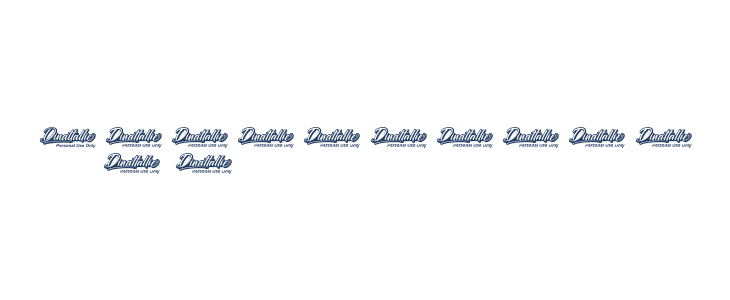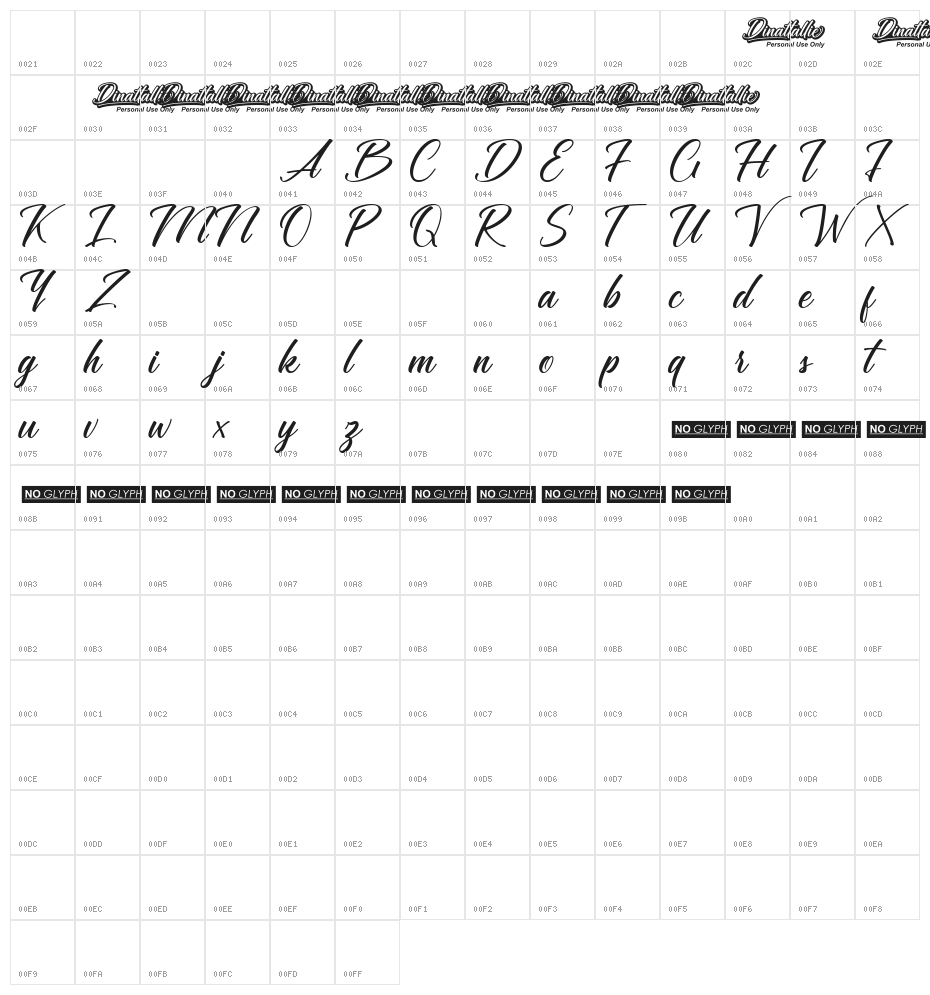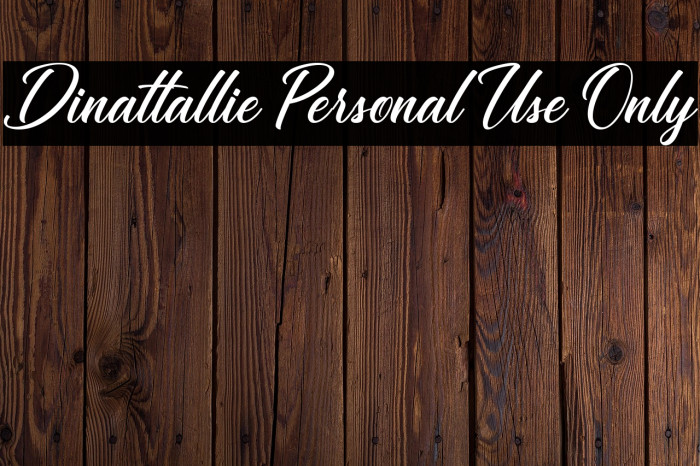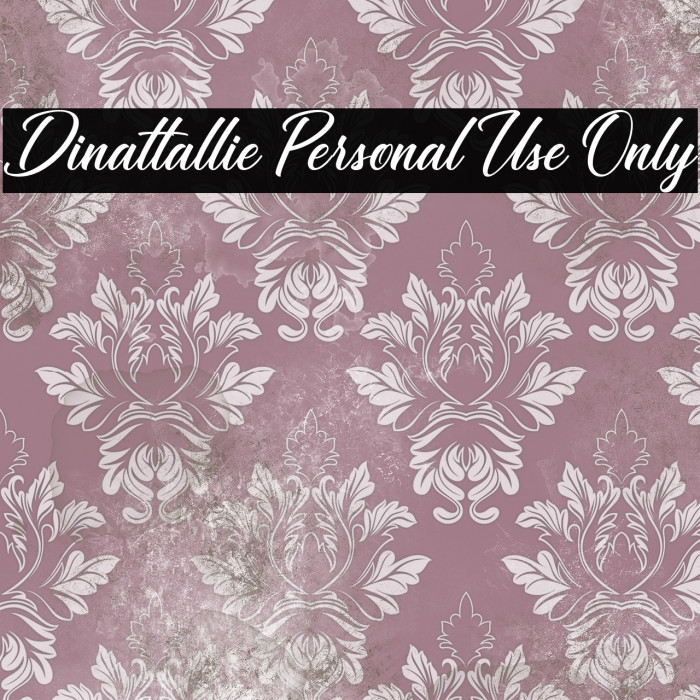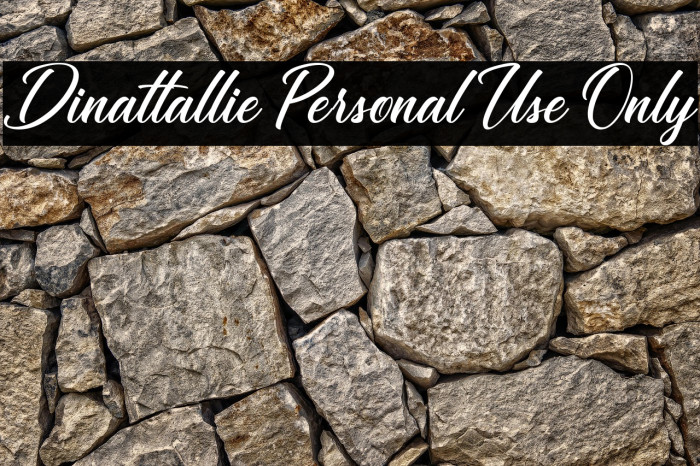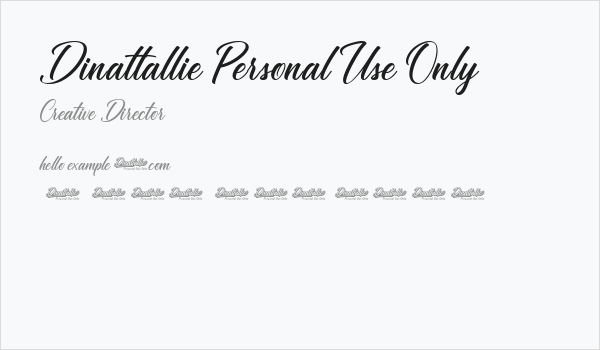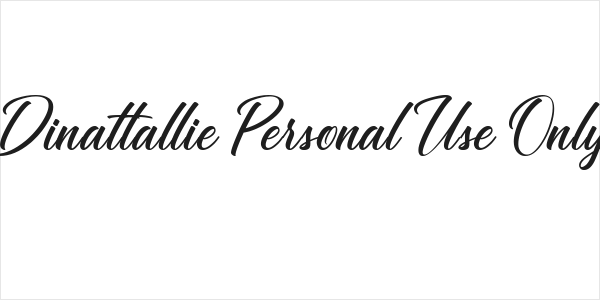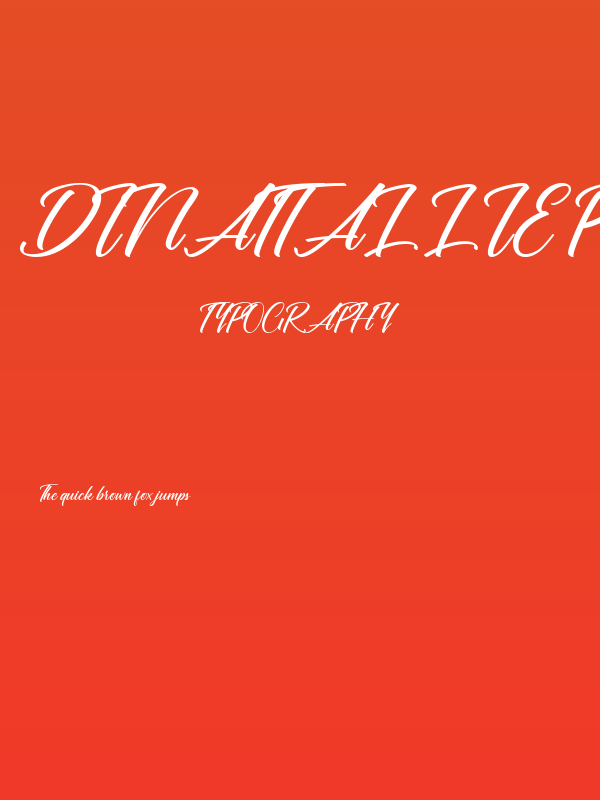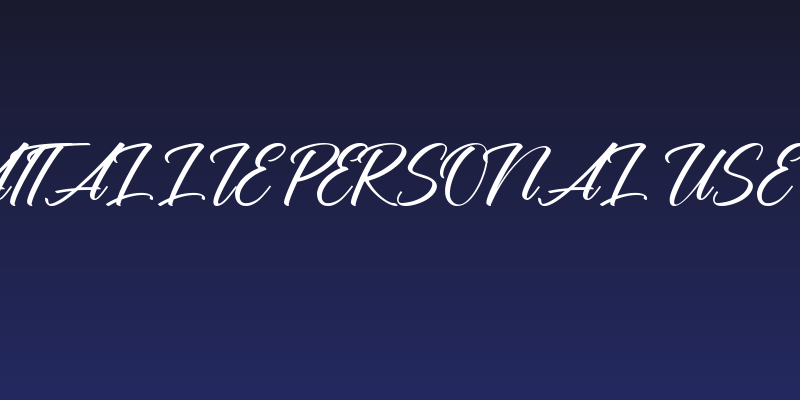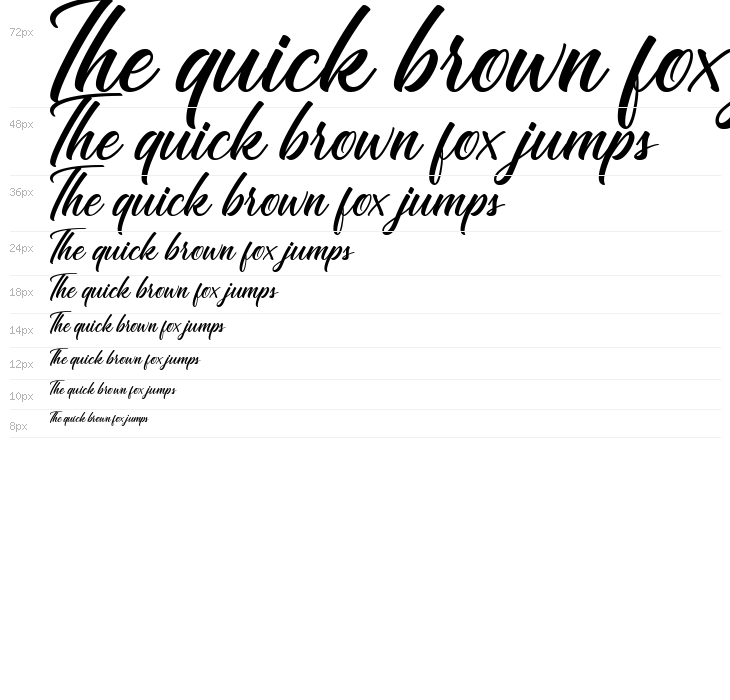
Dinattallie Personal Use Only Font
Dinattallie Personal Use Only Description
This font features an elegant, flowing script style that exudes sophistication and charm. The uppercase letters are characterized by their sweeping curves and flourishes, giving them a sense of movement and grace. The lowercase letters maintain a consistent style, with smooth connections and a slightly more compact form. The numerals and special characters are designed to complement the overall aesthetic, ensuring a cohesive look across all text. This font is ideal for projects that require a touch of elegance and personal flair.
| Overall Style | Elegant, Sophisticated |
| Proposed Projects | Ideal for wedding invitations, branding, greeting cards, and elegant signage. |